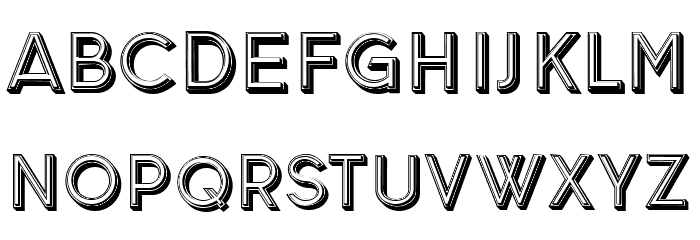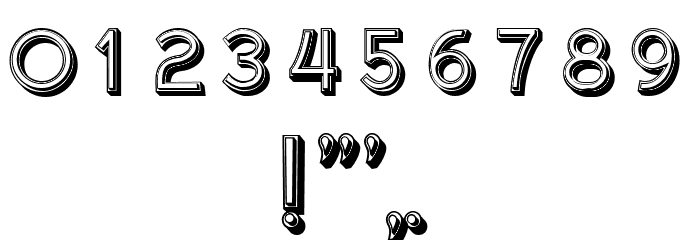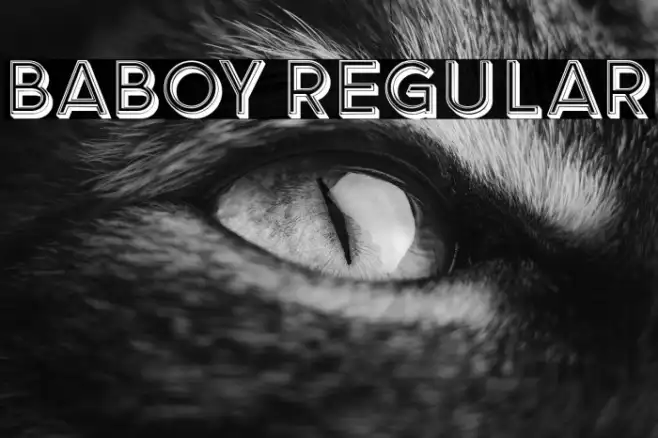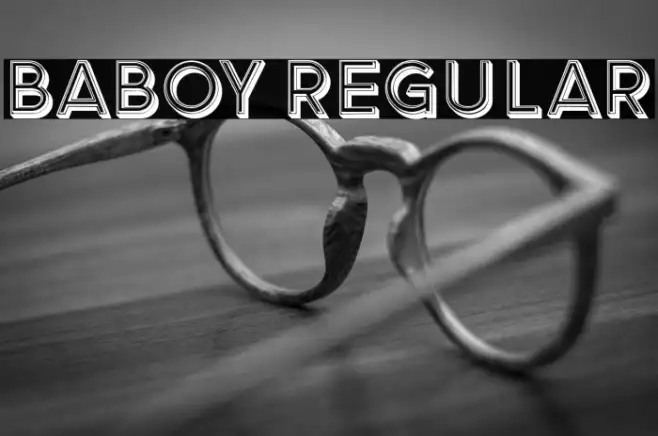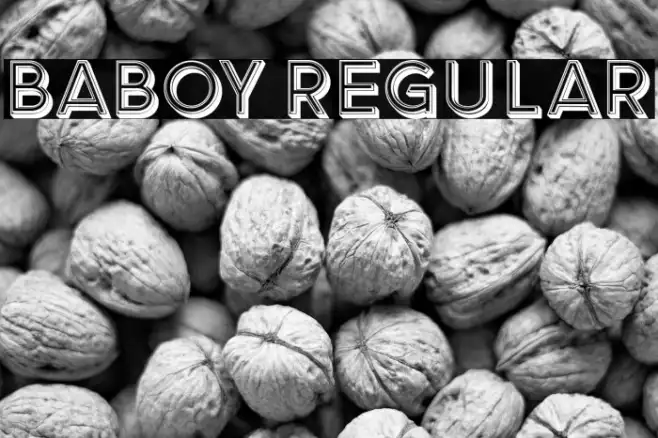
Baboy Regular Font
This font features a bold, three-dimensional appearance with a strong outline and shadow effect, giving it a striking and impactful look. The uppercase letters are consistent in height and width, providing a uniform and balanced appearance. The numerals and special characters maintain the same bold style, ensuring cohesiveness across all elements. The design is modern and eye-catching, suitable for making a statement in any project.
A bold, three-dimensional font with strong outlines and shadow effects.
- Proposed Projects: Ideal for posters, headlines, logos, and any design requiring a bold and impactful statement.